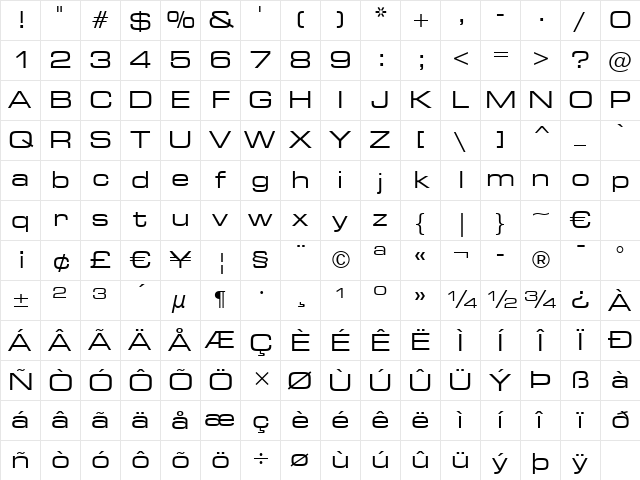
Square721 Ex BT Roman
Square721 Ex BT Family
Design Context for Square721 Ex BT
Square721 Ex BT is a composed and adaptable typeface that performs quietly and consistently across a wide range of design contexts.